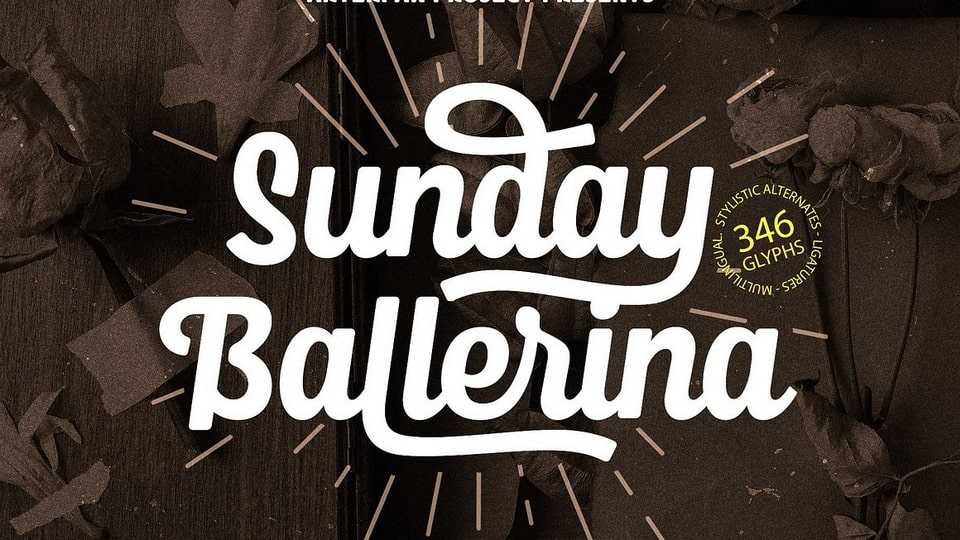
Download Sunday Ballerina font, a stunning vintage monoline typeface that seamlessly blends old-school script typography with a modern touch, exuding sophistication and elegance.